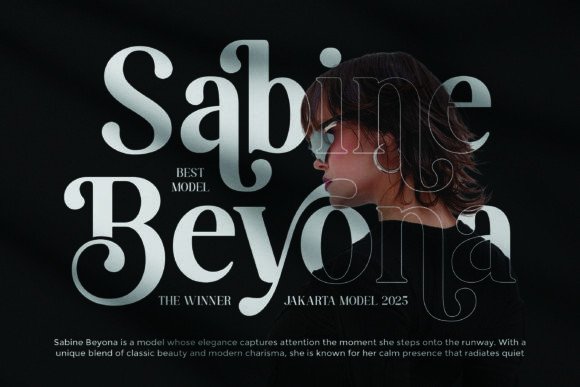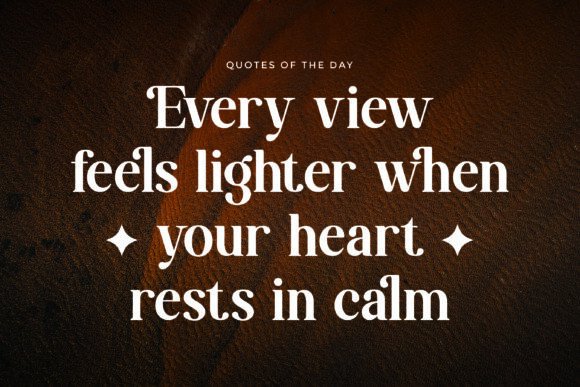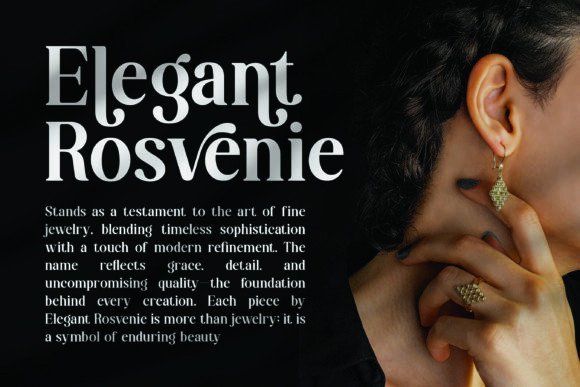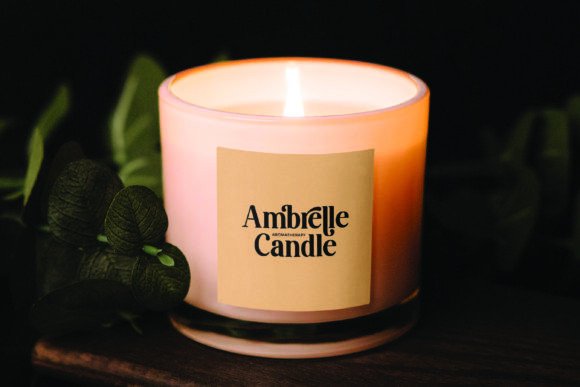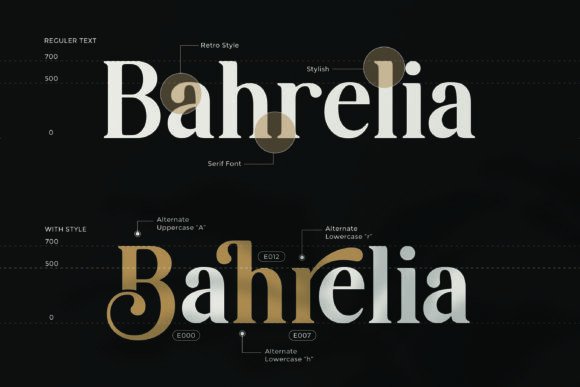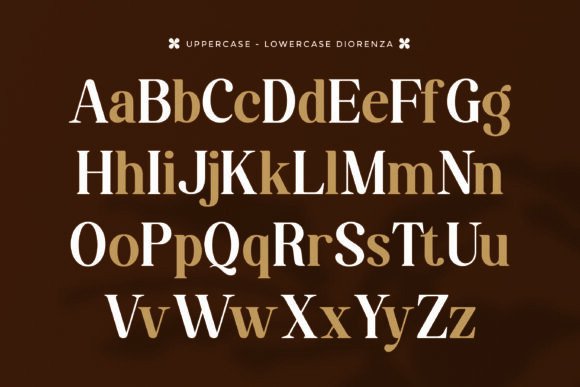
Introduction to Diorenza Font
As designers, we’ve all been there – staring at a blank canvas, trying to bring our creative vision to life. The perfect font can be the difference between a mediocre design and a truly stunning one. That’s where Diorenza Font comes in – a beautiful retro serif typeface that combines timeless elegance with a touch of modern flair.
Whether you’re working on a branding project, designing a magazine, or creating a high-fashion logo, Diorenza Font is the perfect design resource to add a touch of sophistication and luxury to your creative project. With its stylish ligatures, bold vintage character, and transparent background options, this high-quality font is a must-have for any designer looking to elevate their work.
Key Features of Diorenza Font
- High-quality design resource ideal for creative projects requiring a unique and elegant touch.
- Includes a full character set, ensuring that all letters and symbols are fully supported.
Honest Review: Diorenza Font
As a designer, I’m always on the lookout for high-quality design resources to enhance my creative projects. The Diorenza Font has caught my attention, and I’m excited to share my honest review.
What works well: ✨ The Diorenza Font offers a unique and modern aesthetic that’s perfect for digital projects. The font is highly customizable, and the transparent background feature makes it easy to integrate with any design. I’ve used it for several projects, and the results are always impressive.
What I’m not a fan of: ⚠️ The font’s weight and style might not be suitable for all design projects. Additionally, I’ve noticed some compatibility issues with older software versions.
- Perfect for digital projects and modern designs
- Highly customizable and versatile
- Transparent background feature for easy integration
Tips for Getting the Most Out of Diorenza Font
Use the Diorenza Font in combination with other high-quality design resources to create a cohesive and visually appealing design. Experiment with different font sizes and colors to add depth and interest to your design.
The Diorenza Font is perfect for use in logos, branding materials, and other creative projects where a unique and eye-catching font is needed. It’s also great for use in presentations, reports, and other documents where a professional-looking font is required.